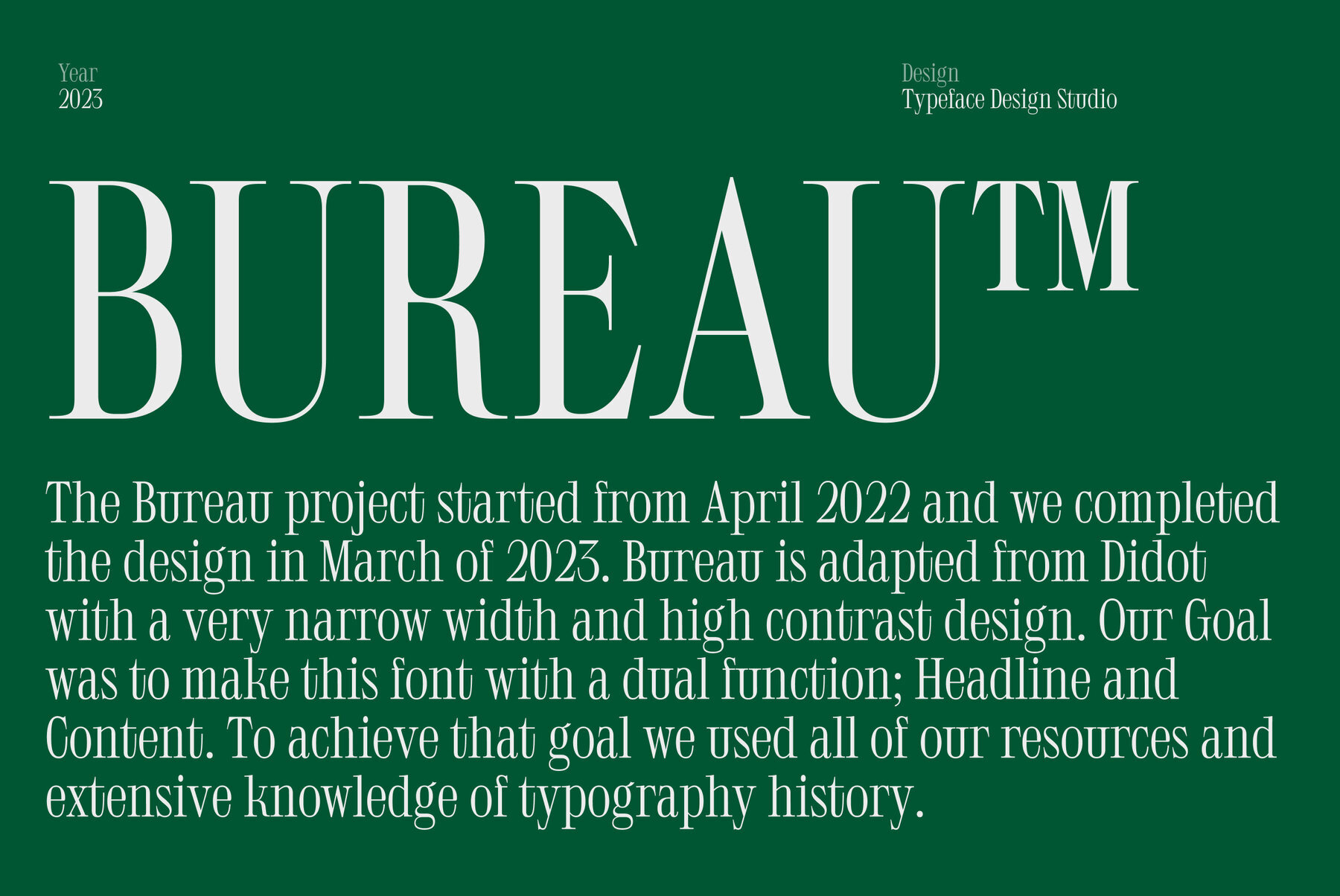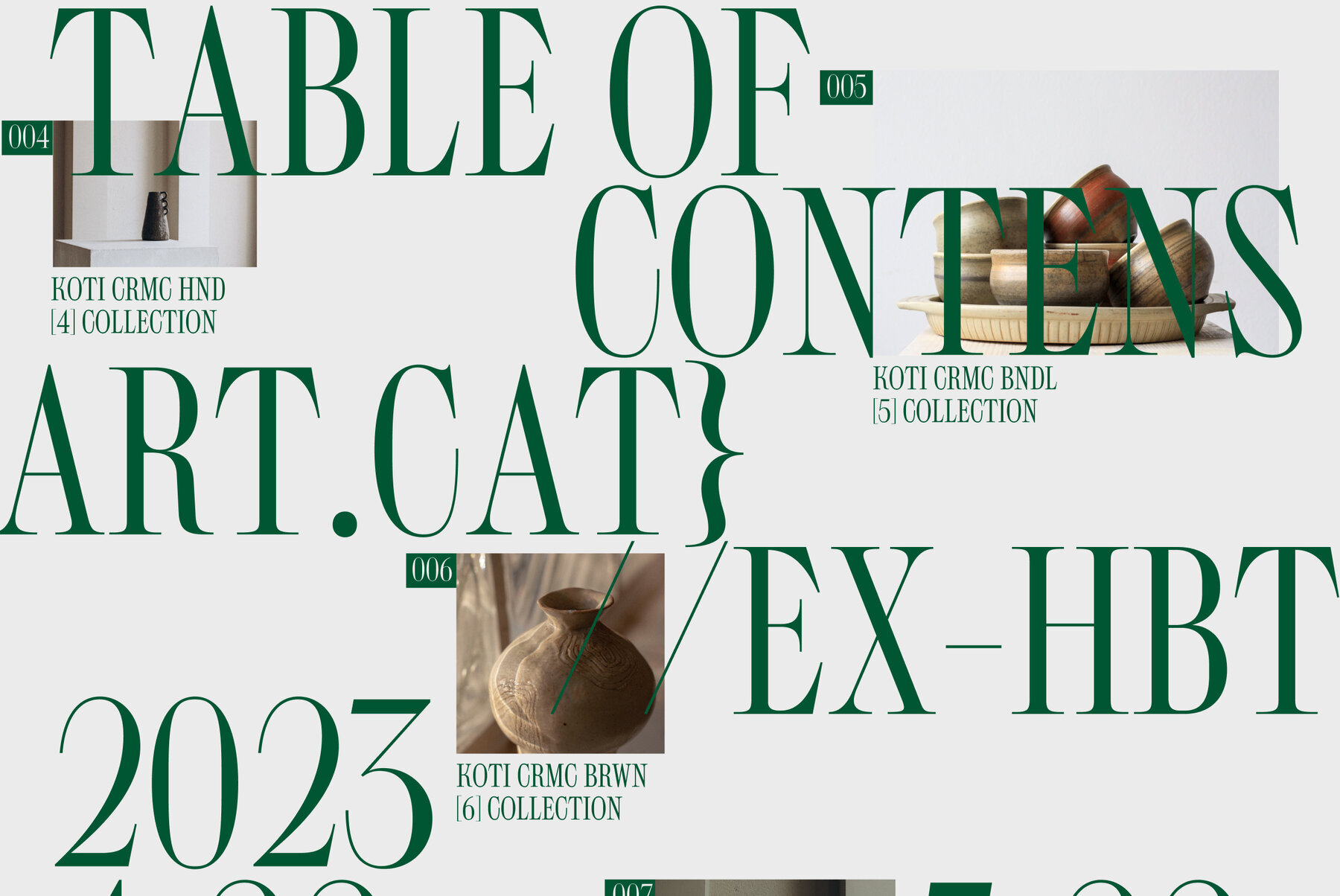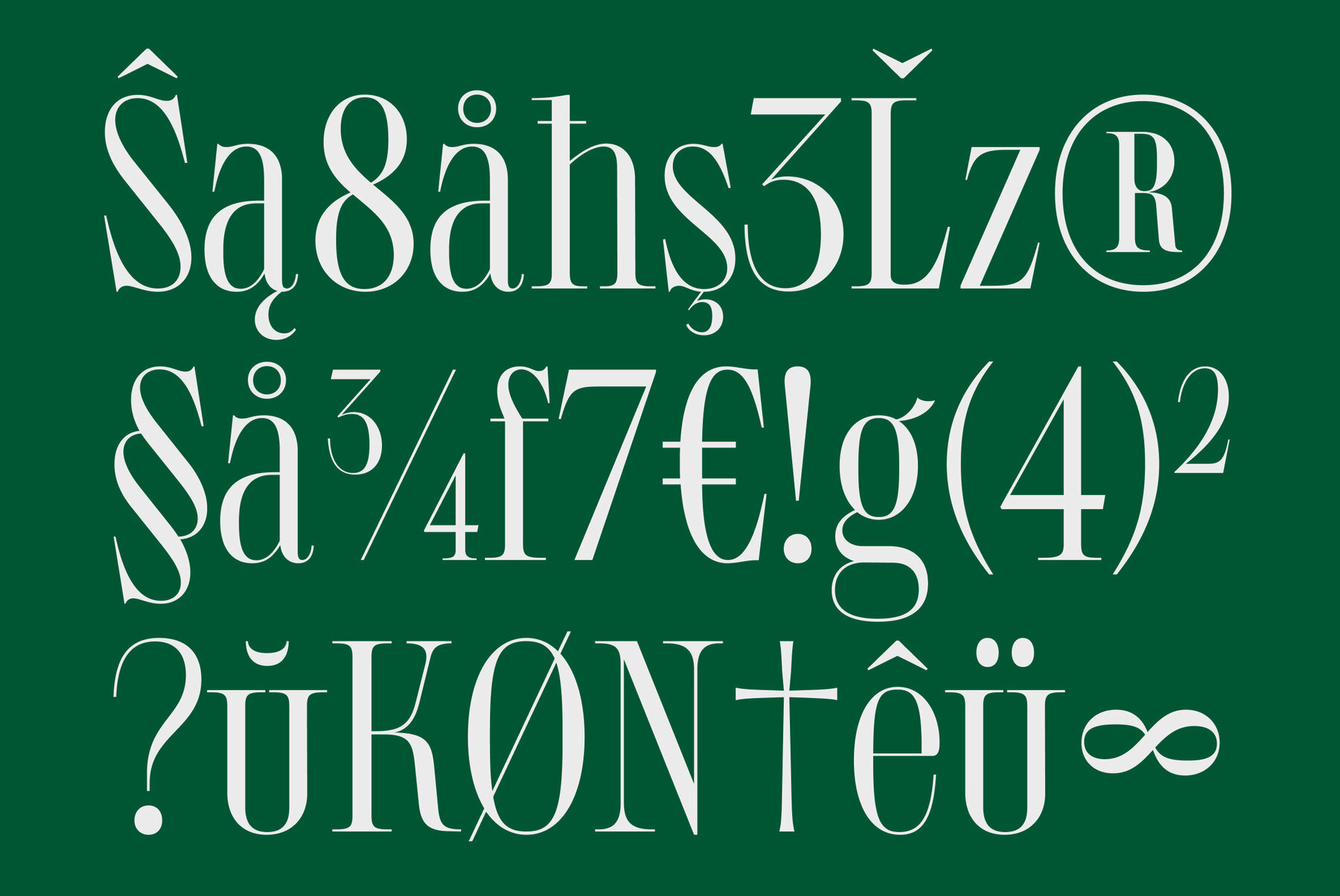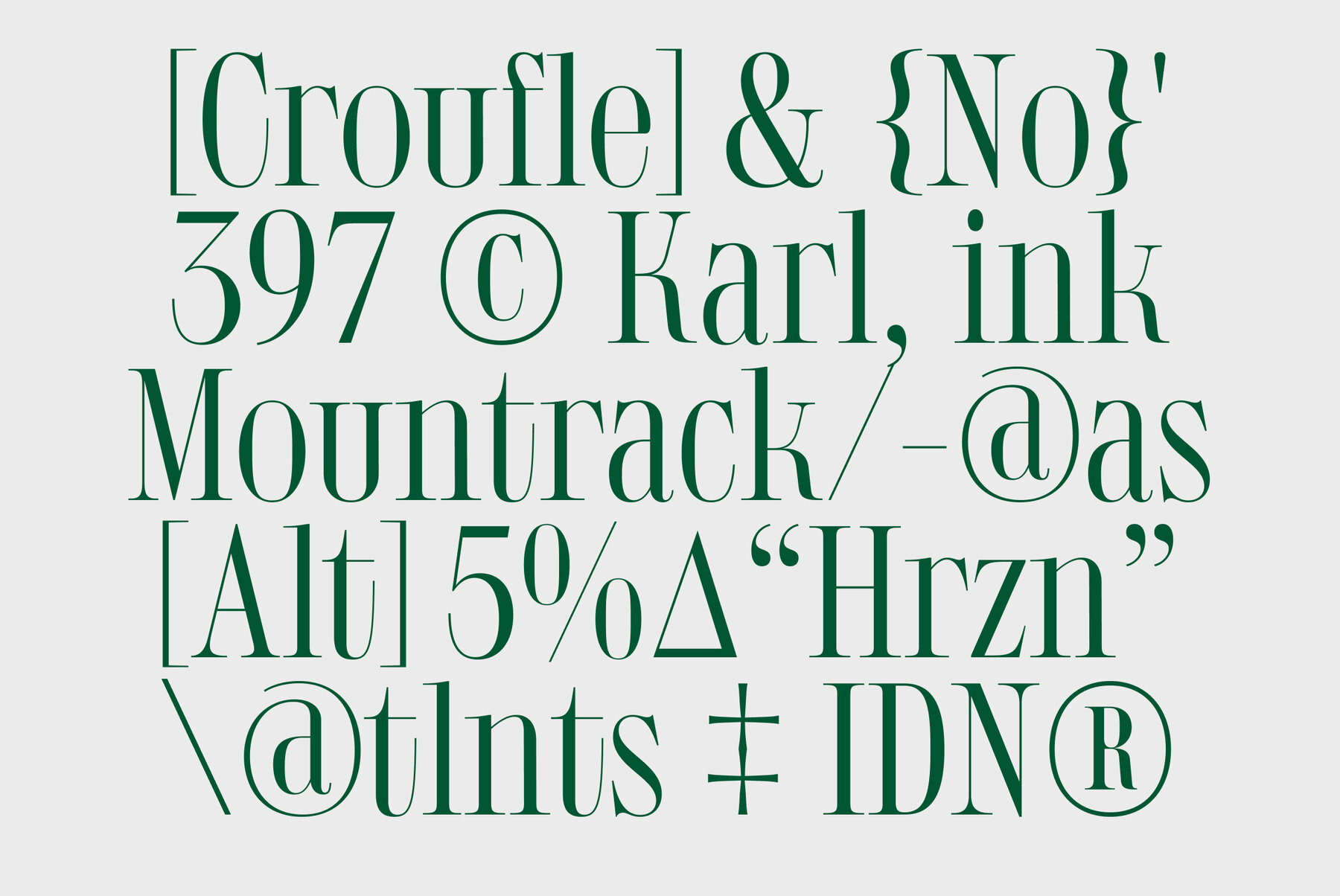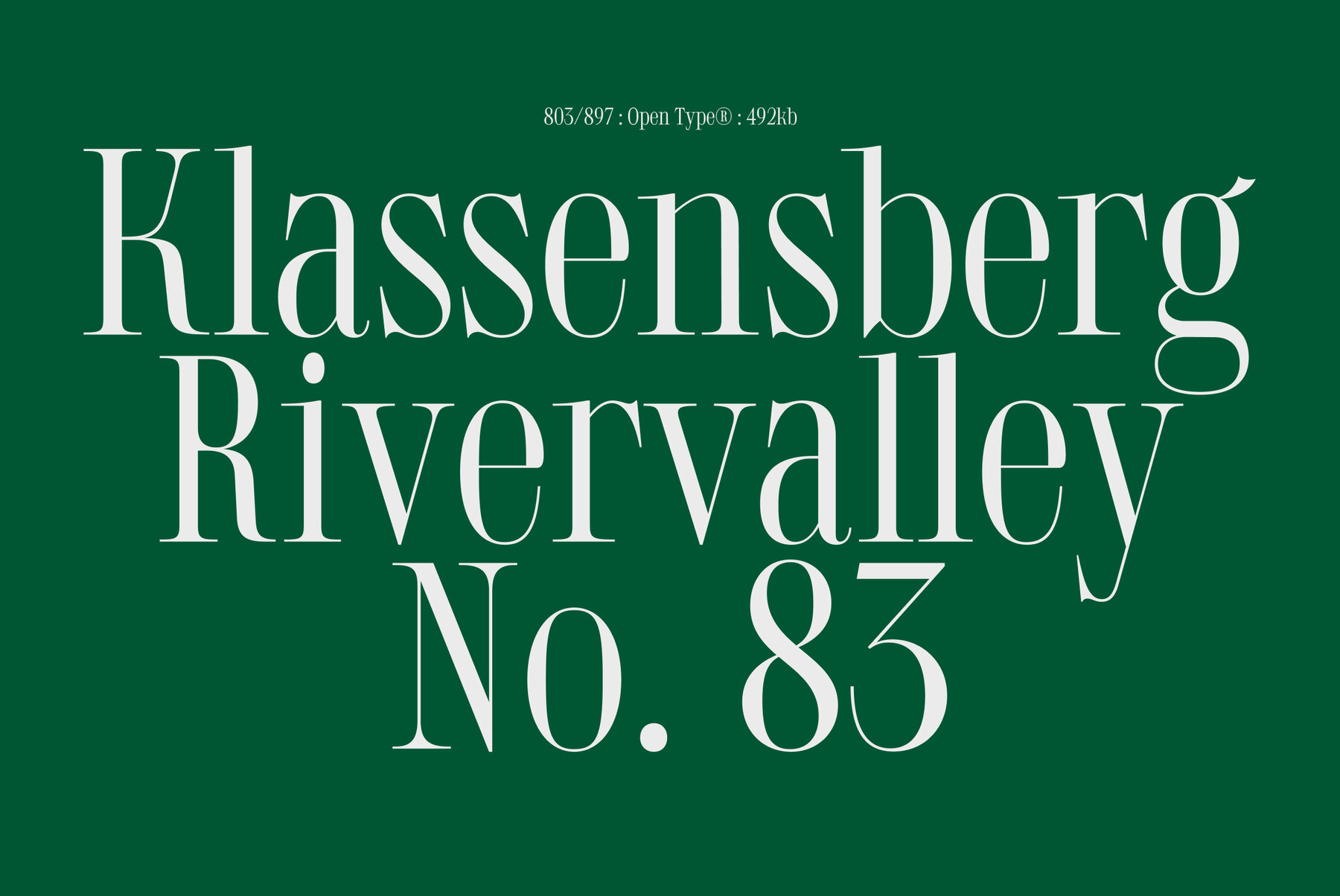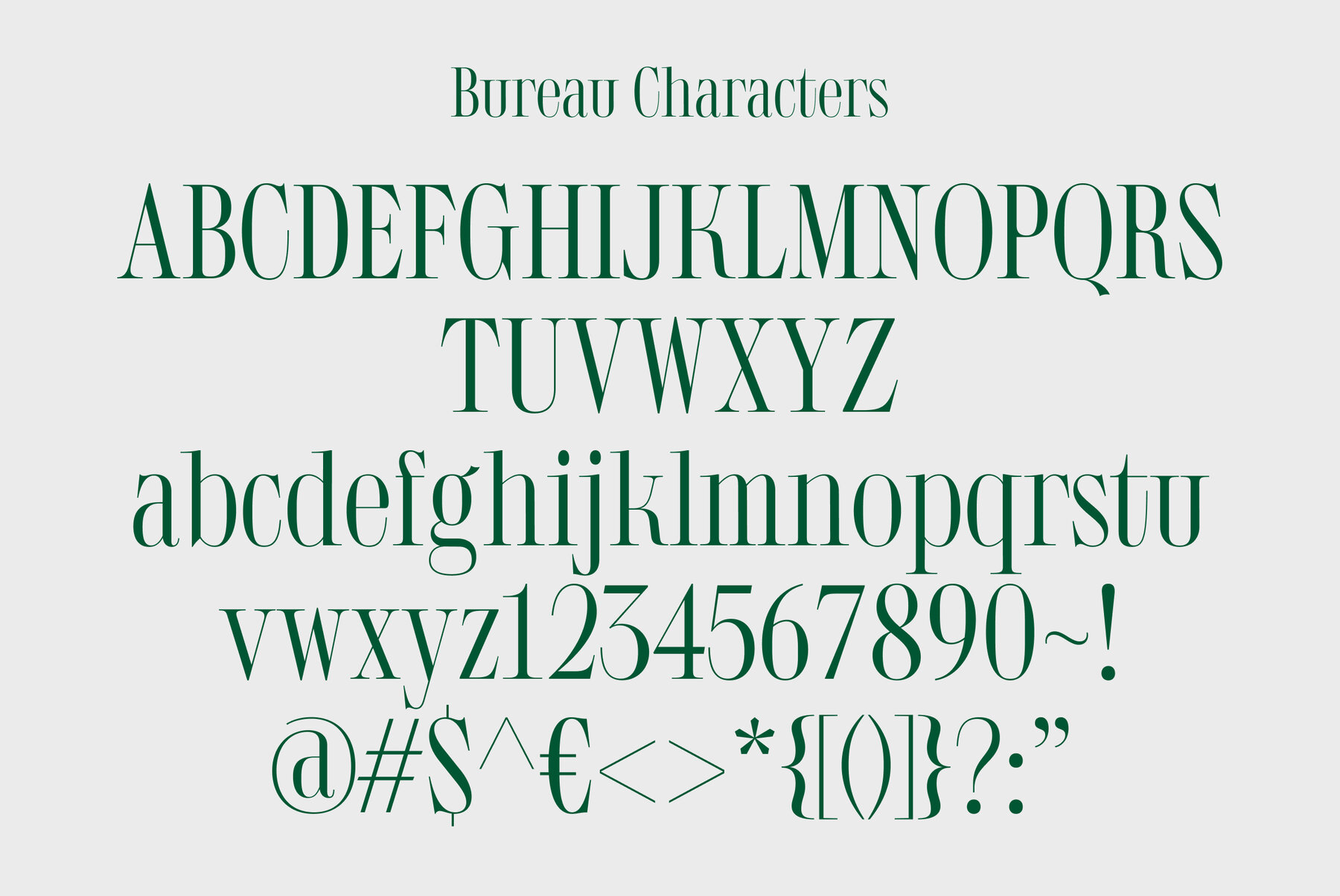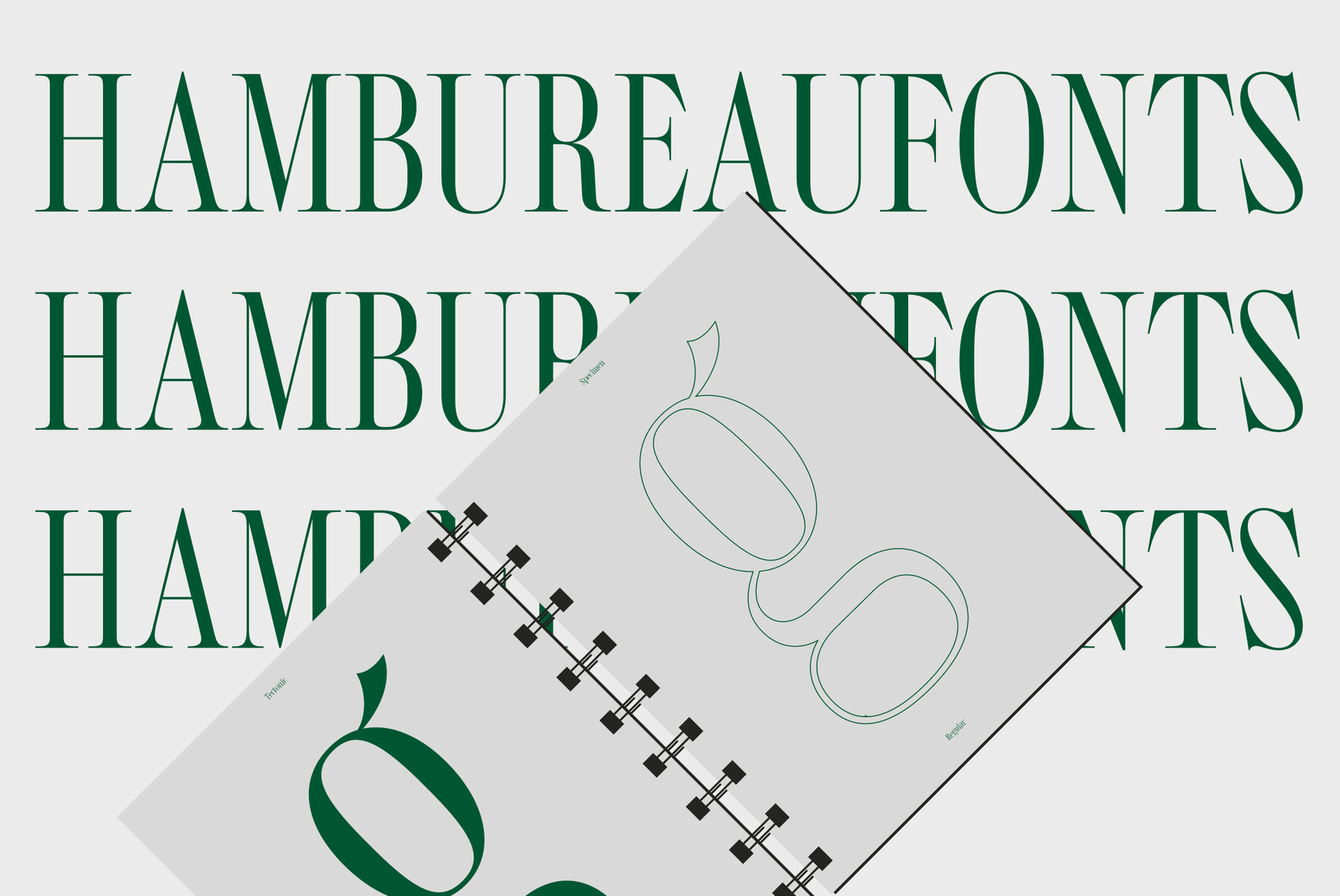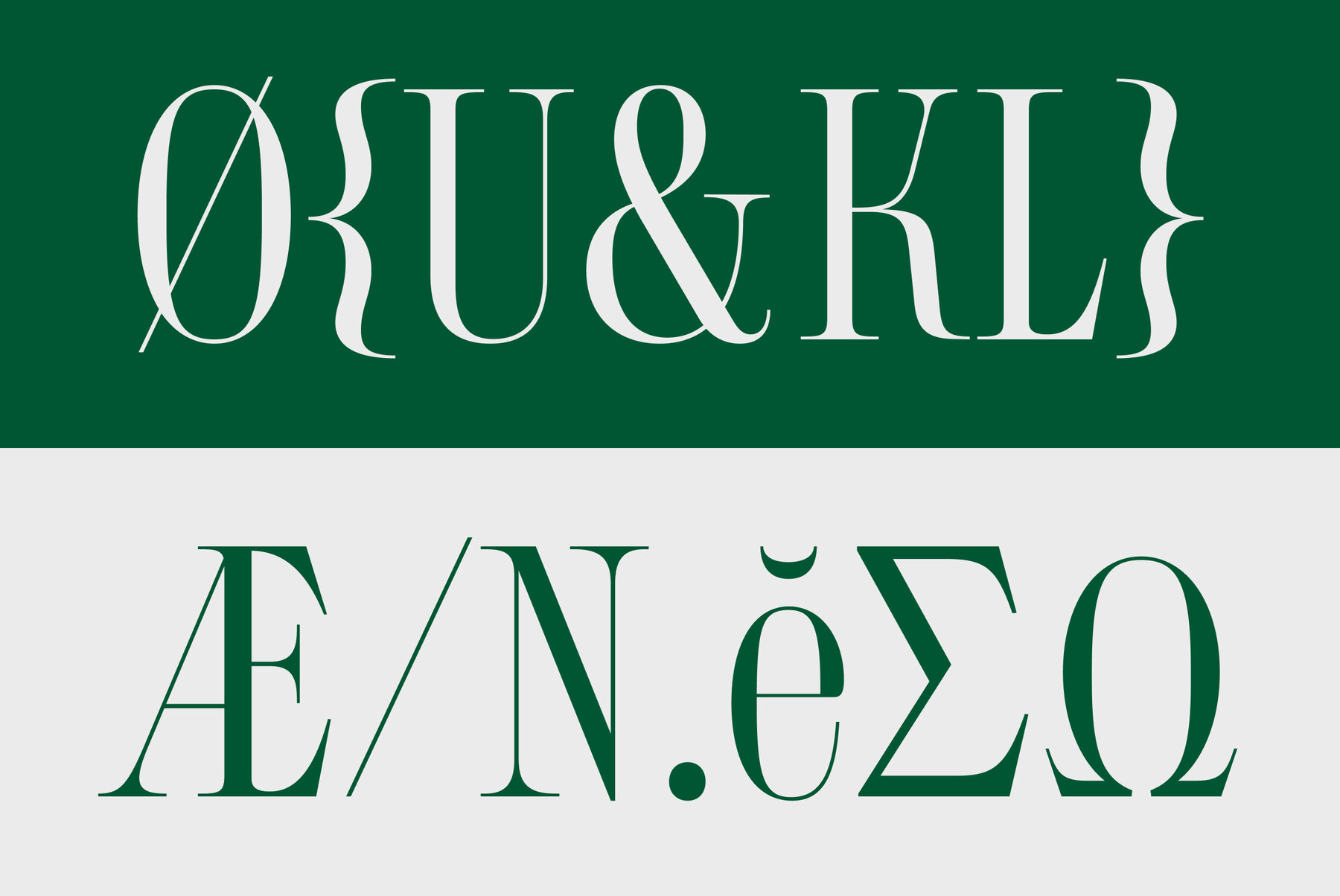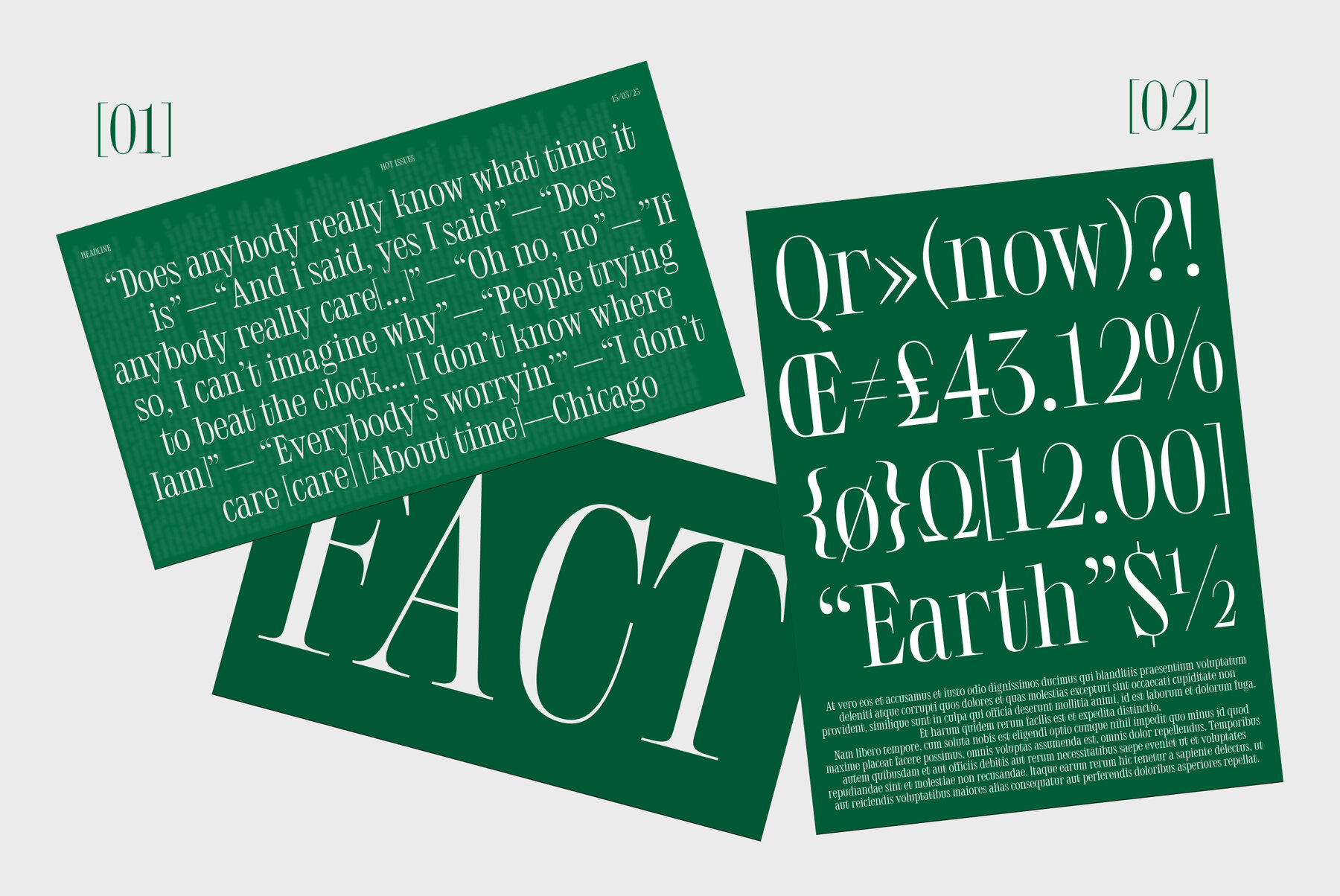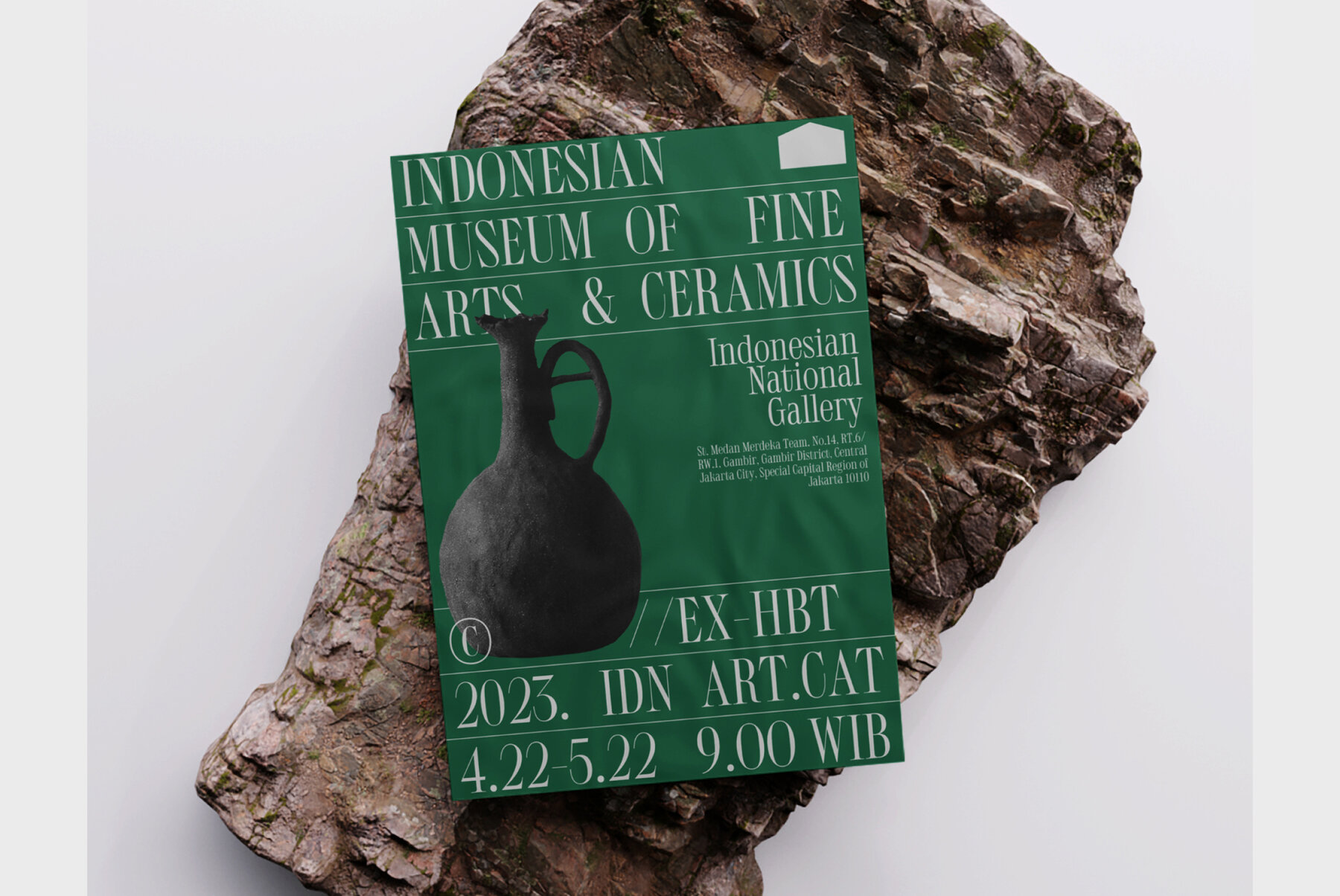
Bureau Font
Bureau Display
Bureau Text
Bureau, a typeface born from the esteemed Didot lineage, masterfully combines narrow width with high-contrast serifs, crafting a versatile font suitable for both headlines and textual content. An extensive exploration into typographic history fueled its creation, ensuring that Bureau stands as a tribute to both classic and innovative design elements. This typeface offers a seamless blend of tradition and modernity, making it a sophisticated choice for diverse applications, from editorial work to branding efforts. Bureau captivates with its eloquence, inviting designers to explore the confluence of history and contemporaneity, while showcasing the timeless charm of a font that defies temporal boundaries.Bureau: Timeless Elegance in a Modern Serif